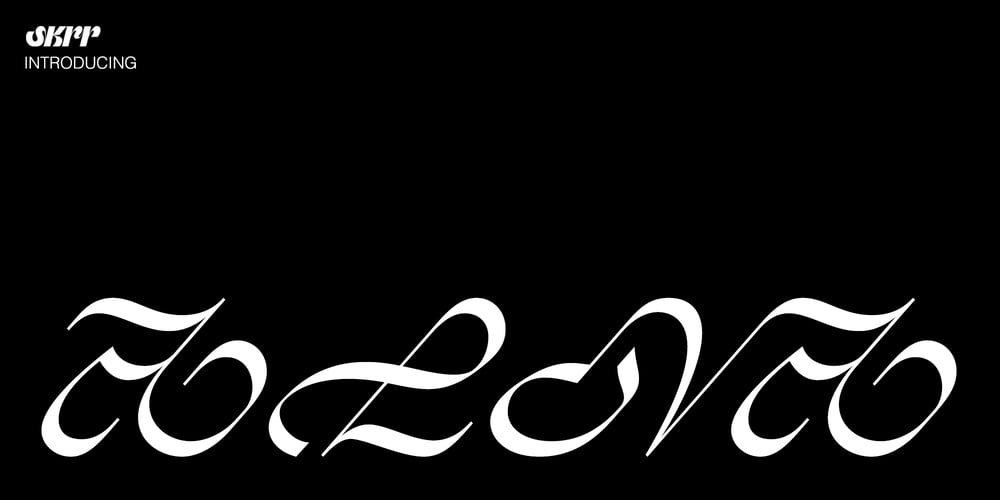
Alna Font Family was designed by Alff Rosine and published by Skrr. Alna contains 3 styles and family package options. Alna is an All Caps Display typeface born with a daily calligraphic sketch exploration focused on recurrent diagonal stroke and reverse contrast inspired by Bastarda and 16th century French Caractères de Civilités forebears St Augustine Civilité. The customised retail typeface offers a stable but full of life feeling. Equiped with a bag full of ligatures for reading optimisation, Alna owns whimsical personality and rhythmic shines at large sizes.Technical use: For optimised readibility, Alna uses ligatures features (liga) to replace (by default) sequences of characters with a single ligature glyph. The longest ligature sequence is three letters. Some combinations can induce problems, especially with long words.